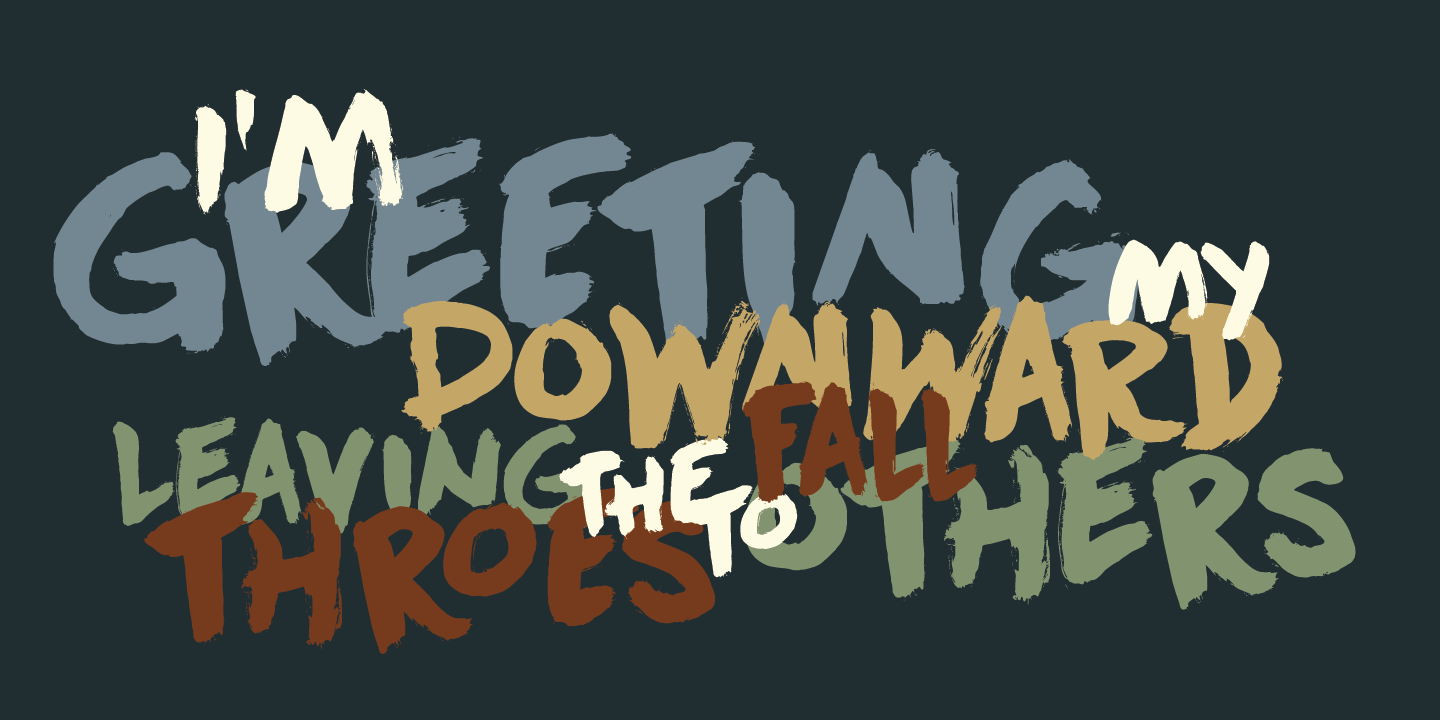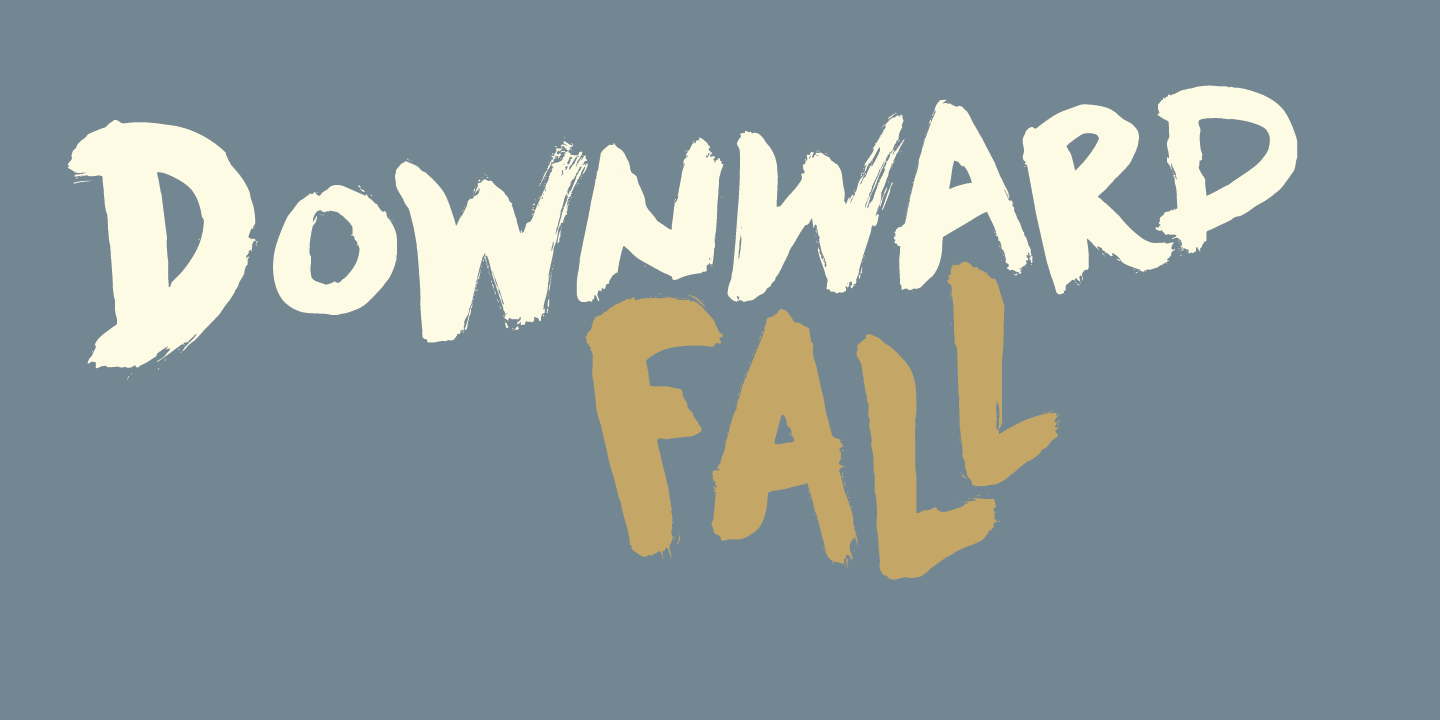
Downward Fall
About Downward Fall
Downward Fall owes its name to one of my favorite Opeth songs, called The Funeral Portrait. The song itself is an uptempo metal composition with rather dark lyrics. This peculiar combination, a mix of good and evil if you will, is what characterizes Downward…